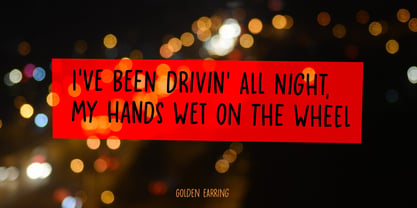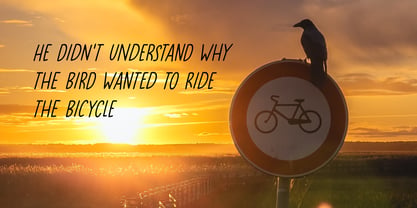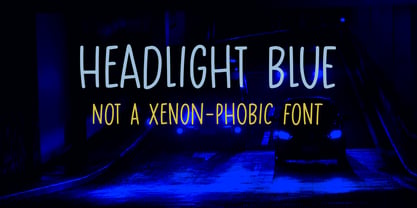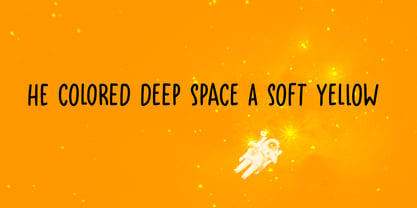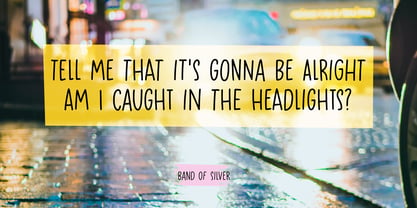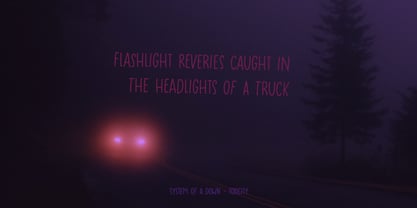
Headlight Blue Pro
Die Schriftfamilie Headlight Blue Pro wurde von David Kerkhoff entworfen und von Hanoded veröffentlicht. Headlight Blue Pro enthält 4 Stile und Familienpaketoptionen. Mehr über diese Familie
Several roads have been closed around my village, so I need to drive alongside narrow country roads ro get my groceries done. The roads are so narrow that two cars cannot pass, so you need to use the (muddy) kerbs. A lot of cars these days have Xenon lights and they shine really bright and blue. I am non xenon-phobic, but I can tell you that the ‘old’ yellowish headlight were softer on the eyes, especially when you’re trying to navigate narrow country roads!
Yes, I know, a long story leading nowhere, but a little personal story (in my opinion) is better than a boring text full of technical bla bla. A font is a font after all and I don’t need to explain what it looks like, because you can see that for yourself!
Headlight Blue is a handmade, all caps display font. It comes with all the trimmings, including two sets of alternates that cycle as you type.
Hanoded is run by Dutchman David Kerkhoff. His fonts are a mishmash of styles, as he just creates whatever pops into his head. You will find a lot of brush fonts in his collection, as his favourite tools are brushes and Chinese ink, with cartoon style fonts and script fonts complementing his repertoire. Aside from making fonts, David occasionally guides tours in far-flung places, renovates his '30's house and tries reasoning with his wife and (teenage) kids. Not an easy task!